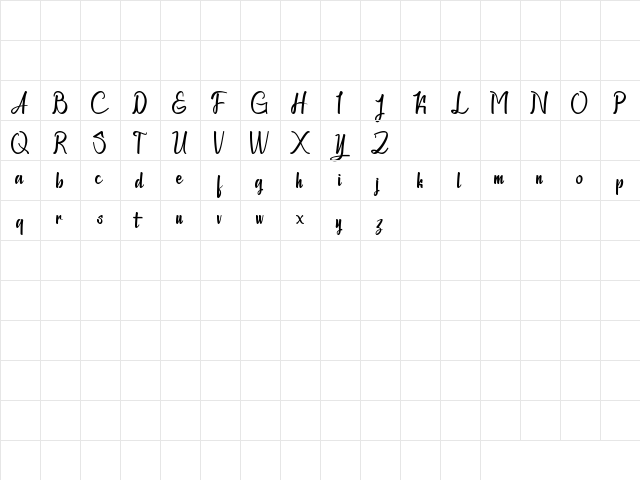
Chapline personal use only Regular Font Preview
Chapline personal use only Regular
Design Context for Chapline personal use only Typeface
Chapline personal use only takes a measured approach to typography — its balanced proportions and neutral character make it a reliable workhorse for both digital and print work.